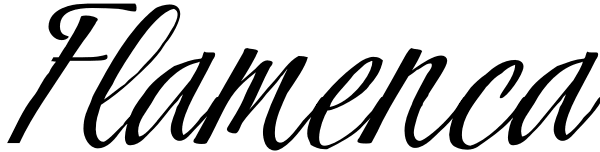
Flamenca
Flamenco is an Andalusian art. Who think in flamenco, think in Spain. Is the result of a cultural mix: Gypsies, Arabs, Jews and Christians mixed elements of their respective cultures with traditional Andalusian elements. It incorporate dance, song...